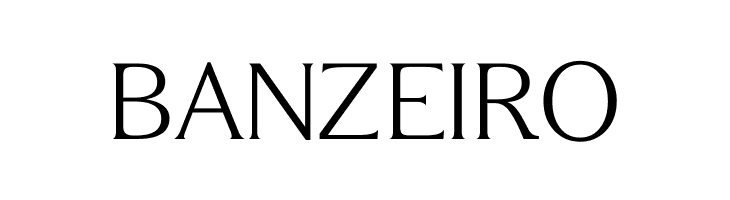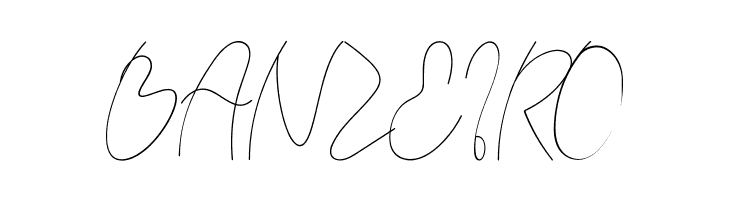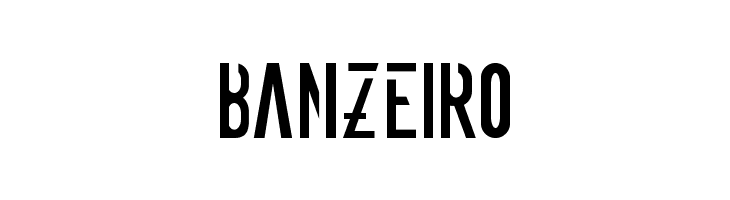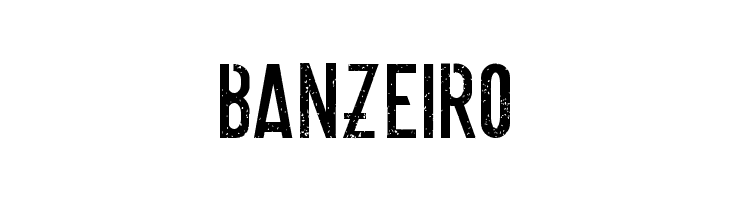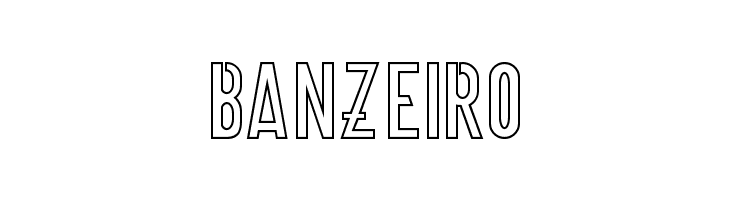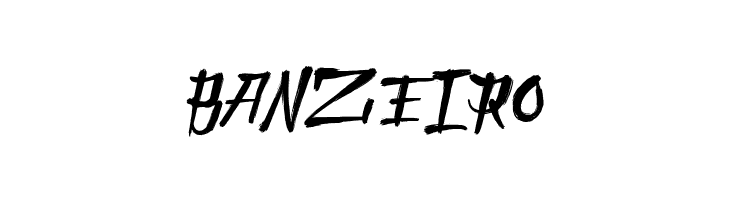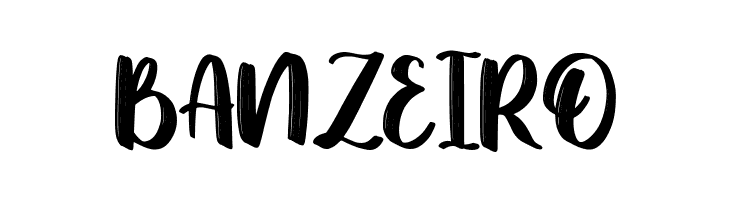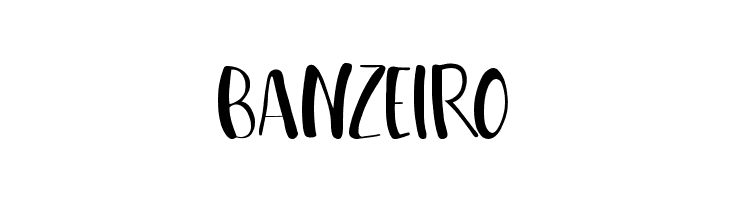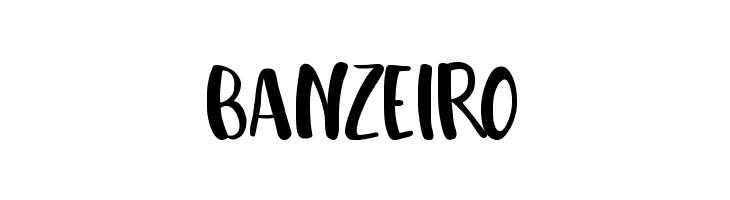
Casual handwritten font with a playful style.
A modern, geometric font with bold, angular lines and a futuristic style.
A modern, italic font with bold, geometric characters and a dynamic style.
A modern, italic, geometric font with a futuristic and dynamic style.
A modern, geometric outline font with a futuristic and angular design.
A modern, geometric outline font with a futuristic and technical style.
A clean, modern sans-serif font with balanced letterforms and consistent stroke widths.
A dynamic and fluid script font with elegant, flowing letterforms.
A graceful, cursive script font with elegant, flowing lines.
A modern, ultra-thin, and elongated font with a sleek and elegant style.
A tall, narrow font with an Art Deco style and consistent stroke width.
An elegant and flowing script font with dynamic strokes and interconnected letters.
A dynamic, cursive script font with fluid, expressive strokes.
An elegant, flowing cursive font with ornate uppercase and graceful lowercase letters.
A bold, brush script font with a hand-painted, dynamic style.
A modern, geometric font with tall, narrow characters and consistent stroke width.
A bold, gothic-inspired font with sharp serifs and high contrast.
A bold, italic serif font with high contrast and decorative elements.
A dynamic, handwritten italic font with a casual and modern feel.
A bold, handwritten font with a playful and casual style.
A bold, playful font with rounded, hand-drawn characters.
A bold, gothic-style font with intricate blackletter elements.
A bold, cursive script font with a dynamic and energetic style.
A whimsical, cactus-themed font with a playful, hand-drawn style.
A playful, plant-themed decorative font with an italic slant.
A graceful and flowing script font with elegant, continuous strokes.
A bold, brush script font with dynamic and expressive strokes.